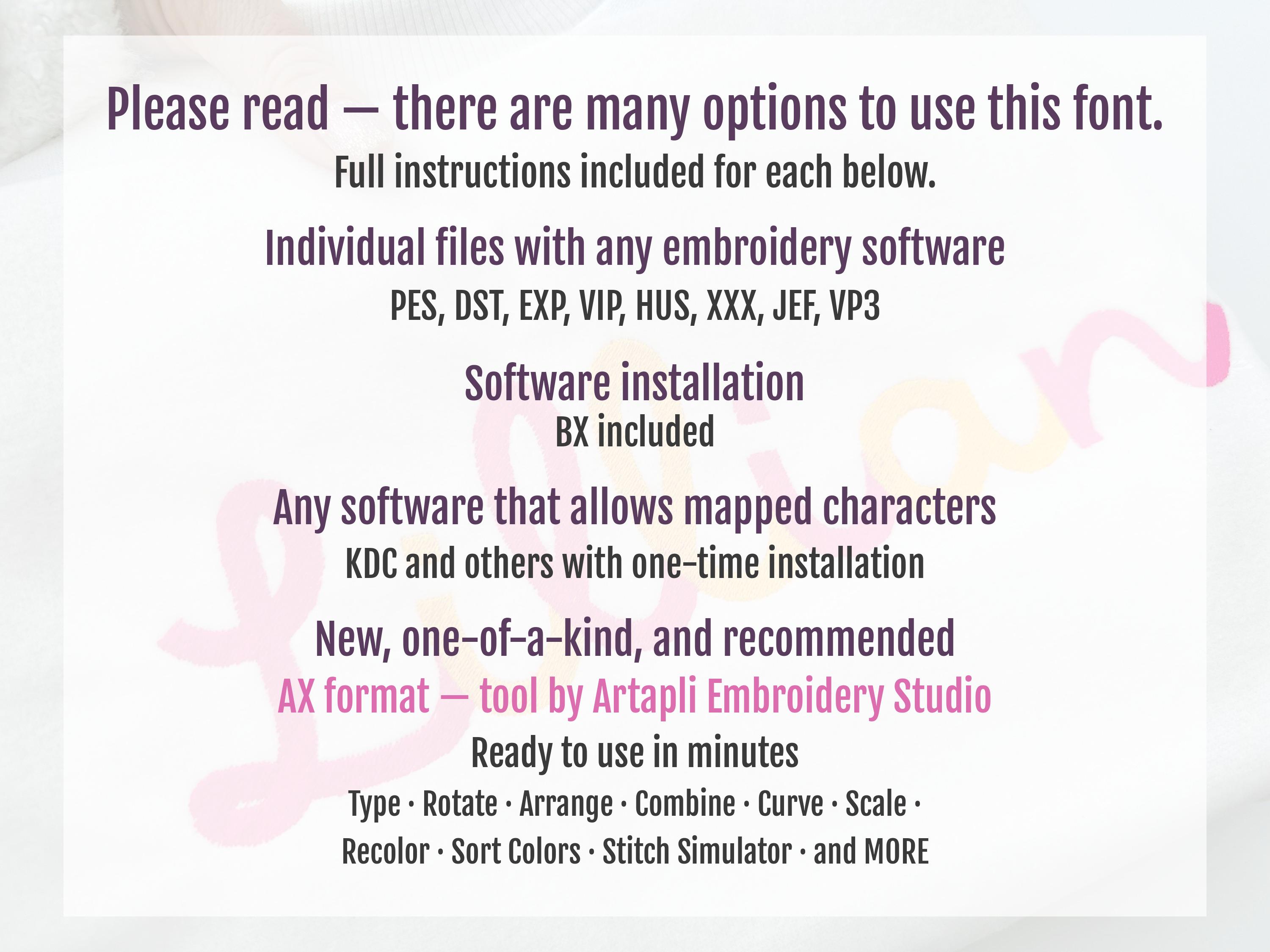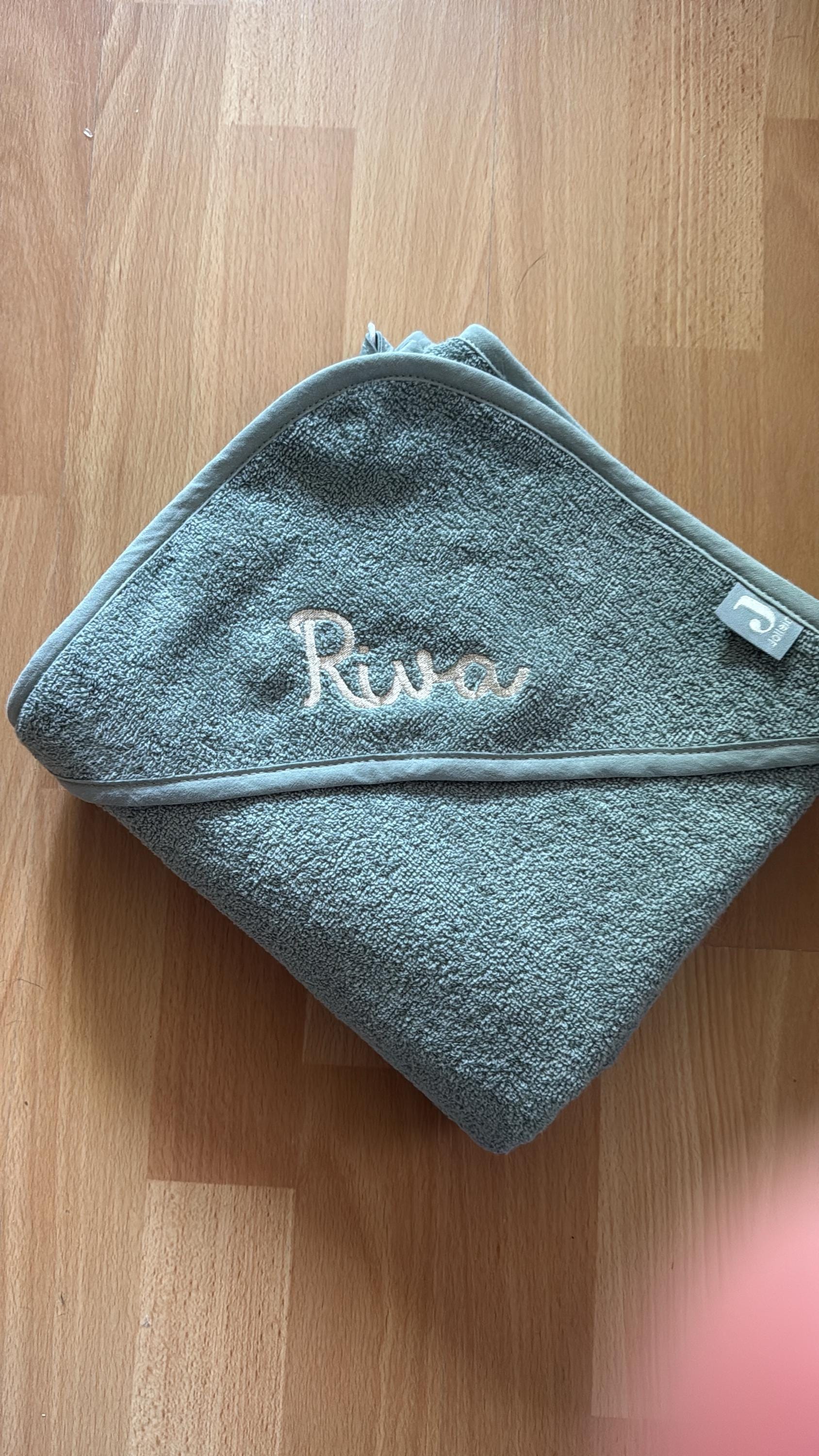
Fill stitch FONT handwritten script alphabet letters numbers kids monogram machine embroidery designs in assorted sizes 1.8 up to 4 inch, BX included
Whole alphabet A-Z uppercase and lowercase letters, and numbers.